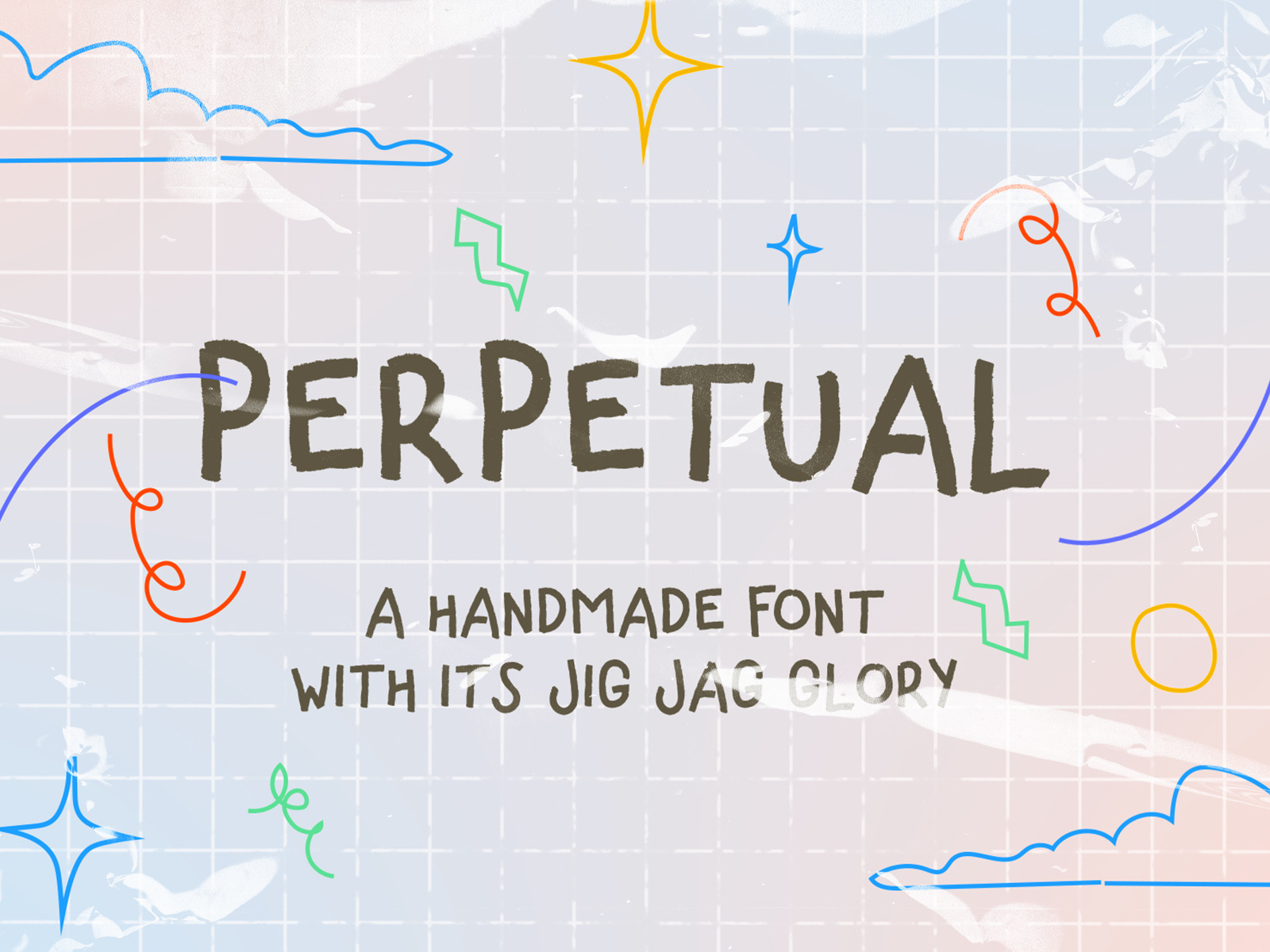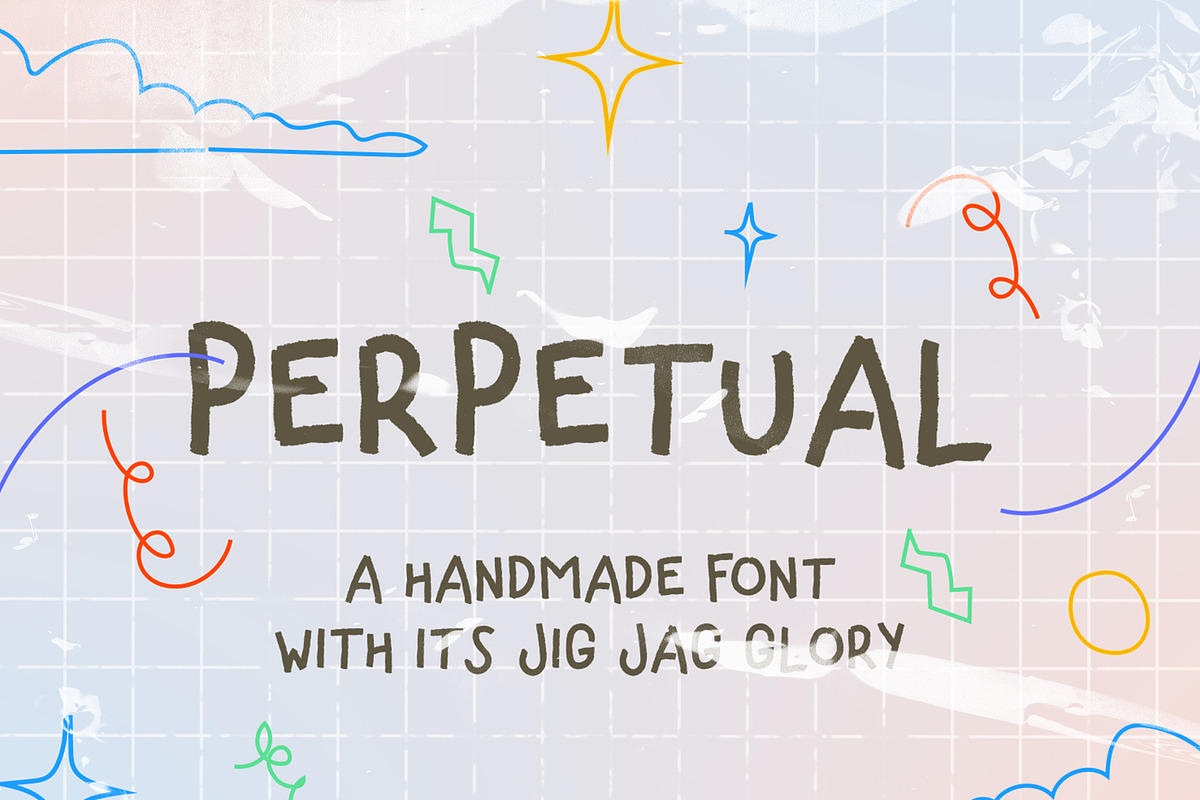
Perpetual | Handmade Jig Jag Font
Perpetual (Regular) v1.0 is an experimental handmade font with its raw jig jag glory. Consists of limited uppercase letters, numbers, and punctuation marks — for now.